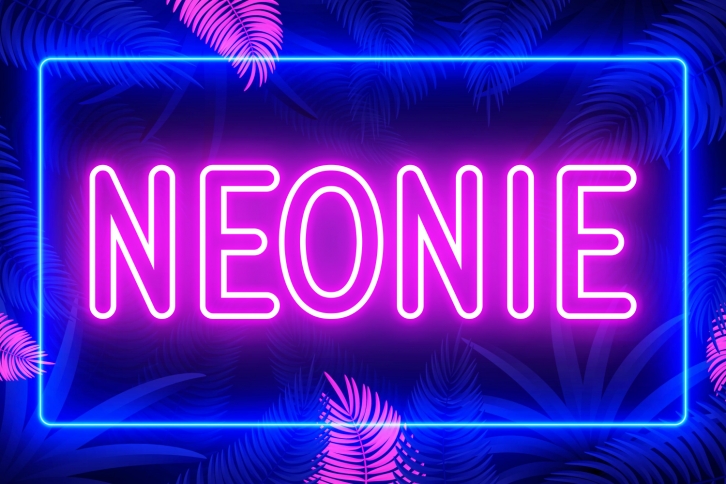
Neonie is a cool, outlined display font. It is suitable for logotype, headline font, in corporate identity, brand identity, apparel industry, poster, music, movie, game, magazine, book, comic, cartoon, YouTube, Instagram, website, or any of your creative design projects.